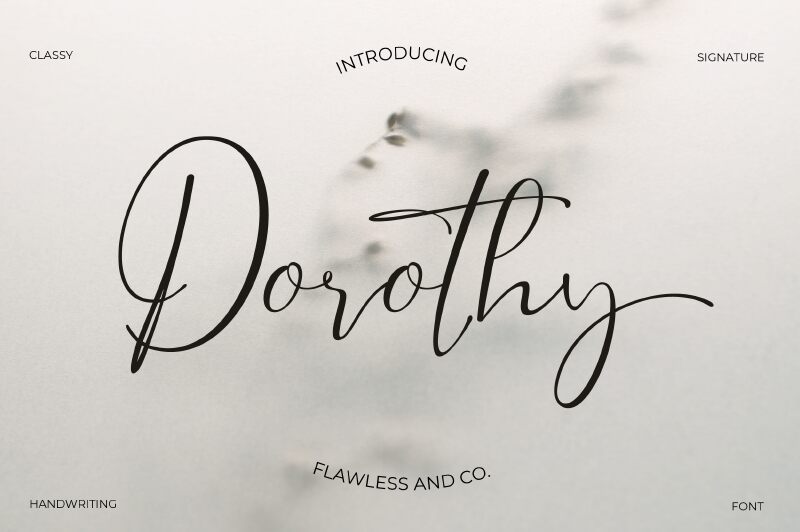
Dorothy Regular
Dorothy, the remarkable creation of Achmad Yani, is a captivating handwritten font with a signature touch. Its extra-light weight adds an elegant and delicate feel to any project it graces.
Perfect for wedding invitations, romantic quotes, and feminine branding materials. This enchanting typeface effortlessly conveys grace and sophistication while adding a personal touch to your designs.
Let Dorothy's flowing curves and individualistic charm bring a touch of magic to your next project.